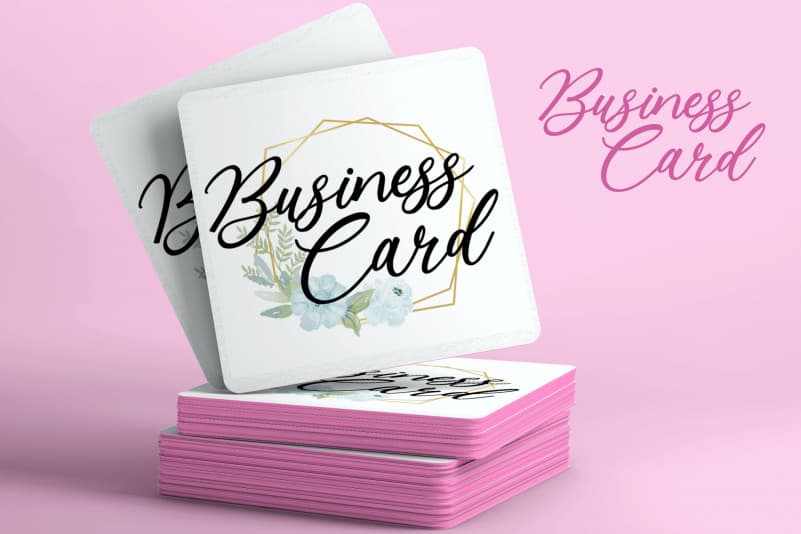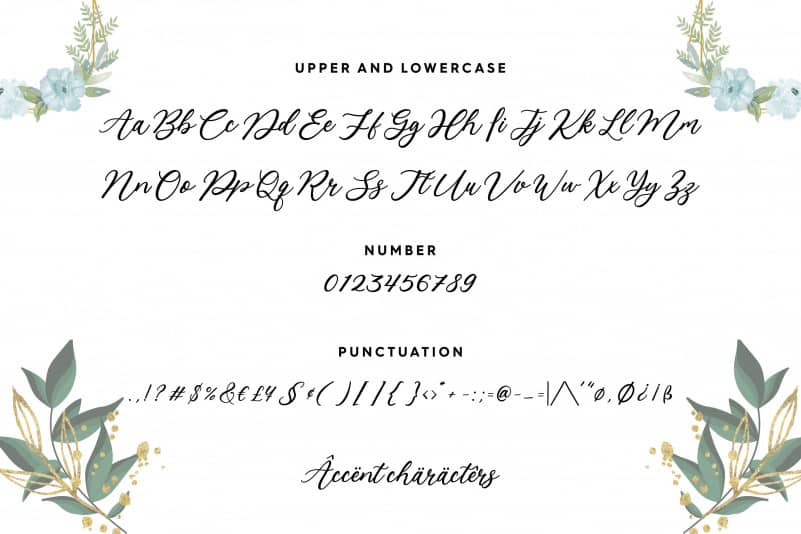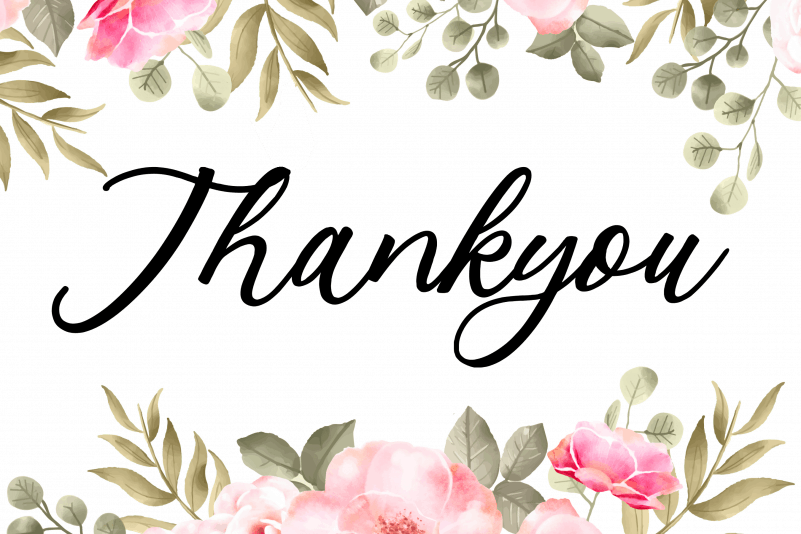
Kailey Latief Calligraphy Font
Proudly Present, Kailey Latief Calligraphy Font.
Kailey Latief is a Modern Calligraphy Font.
Kailey Latief is perfect for product packaging, branding project, megazine, social media, wedding, or just used to express words above the background.